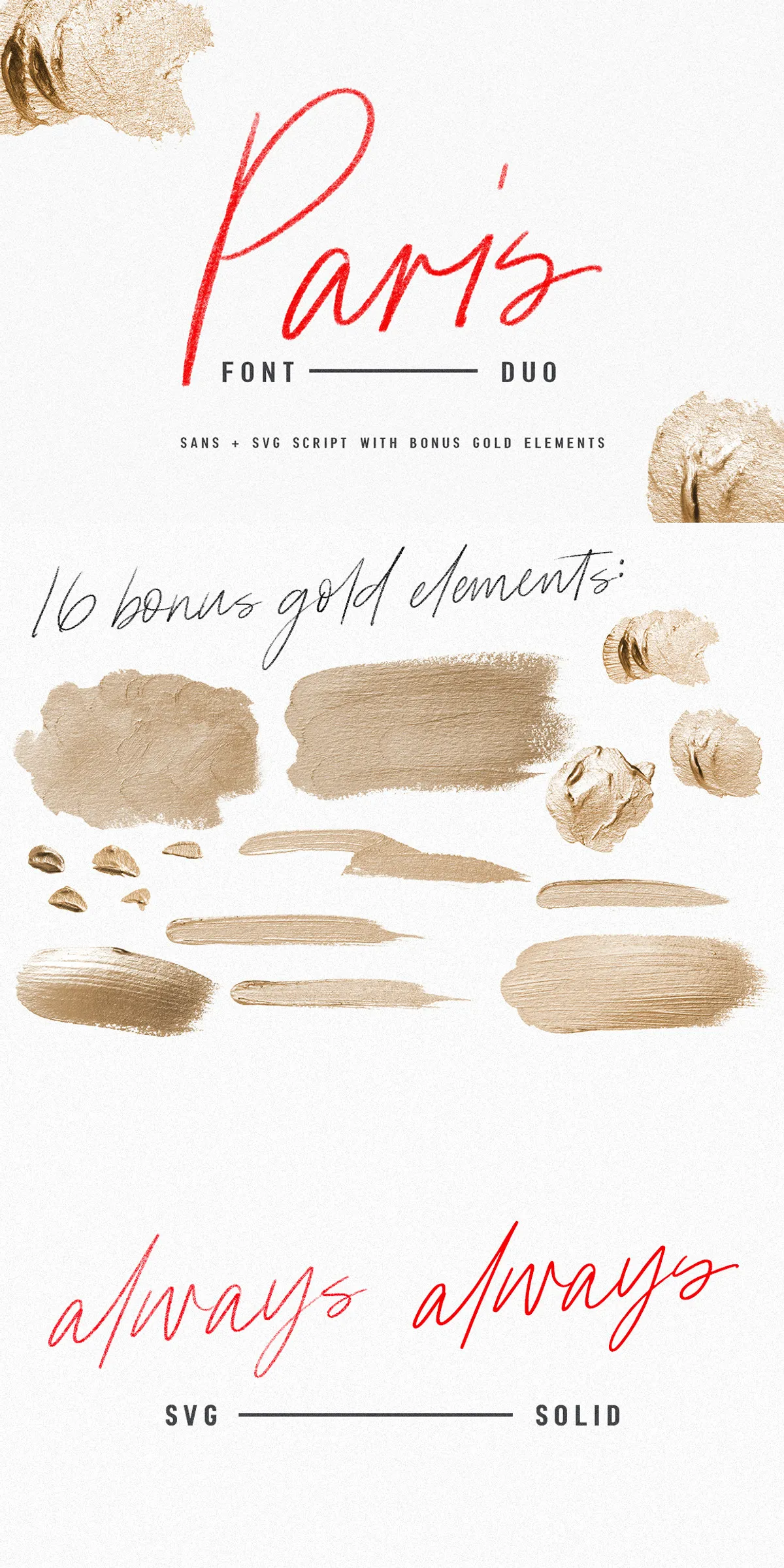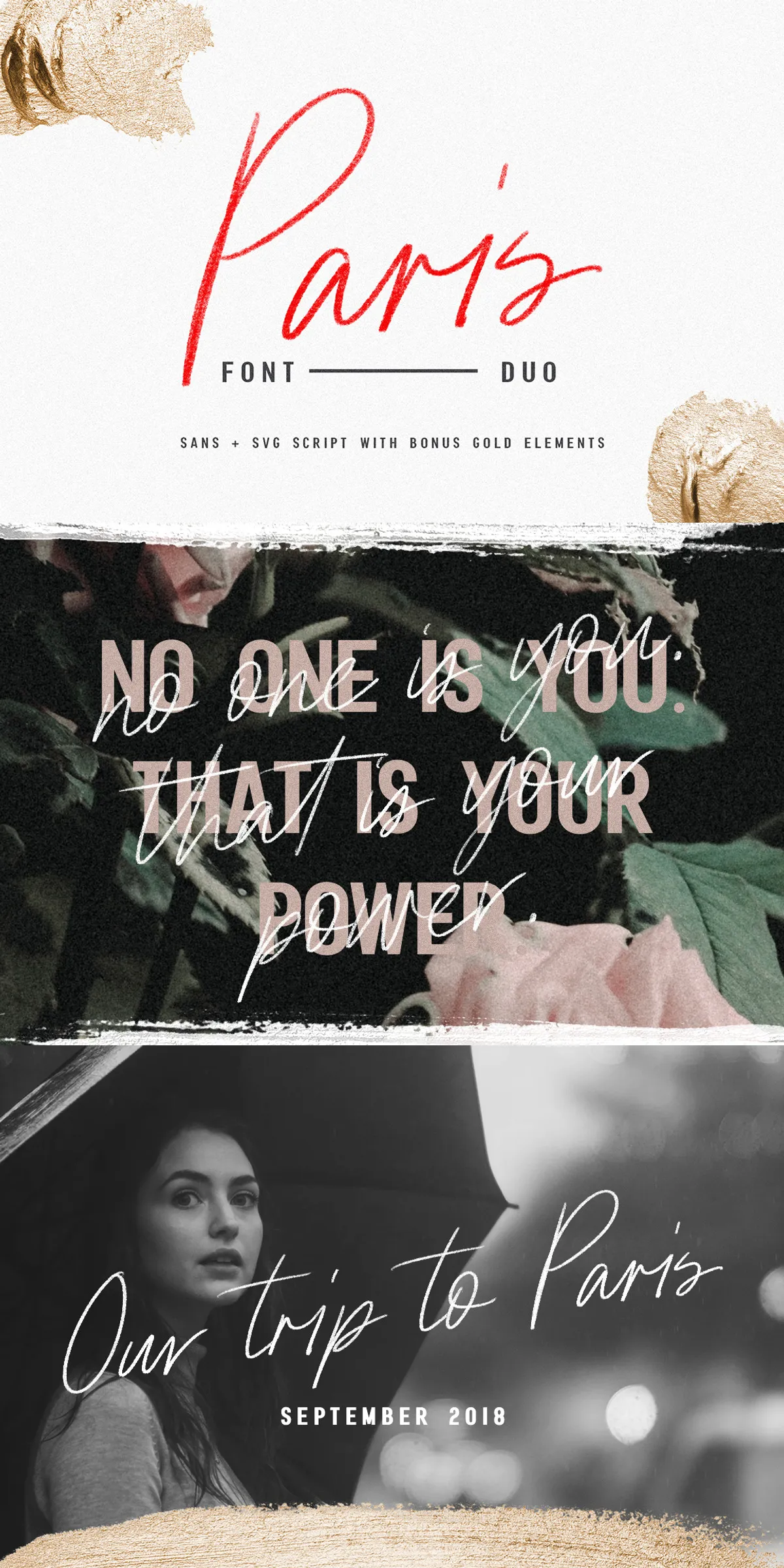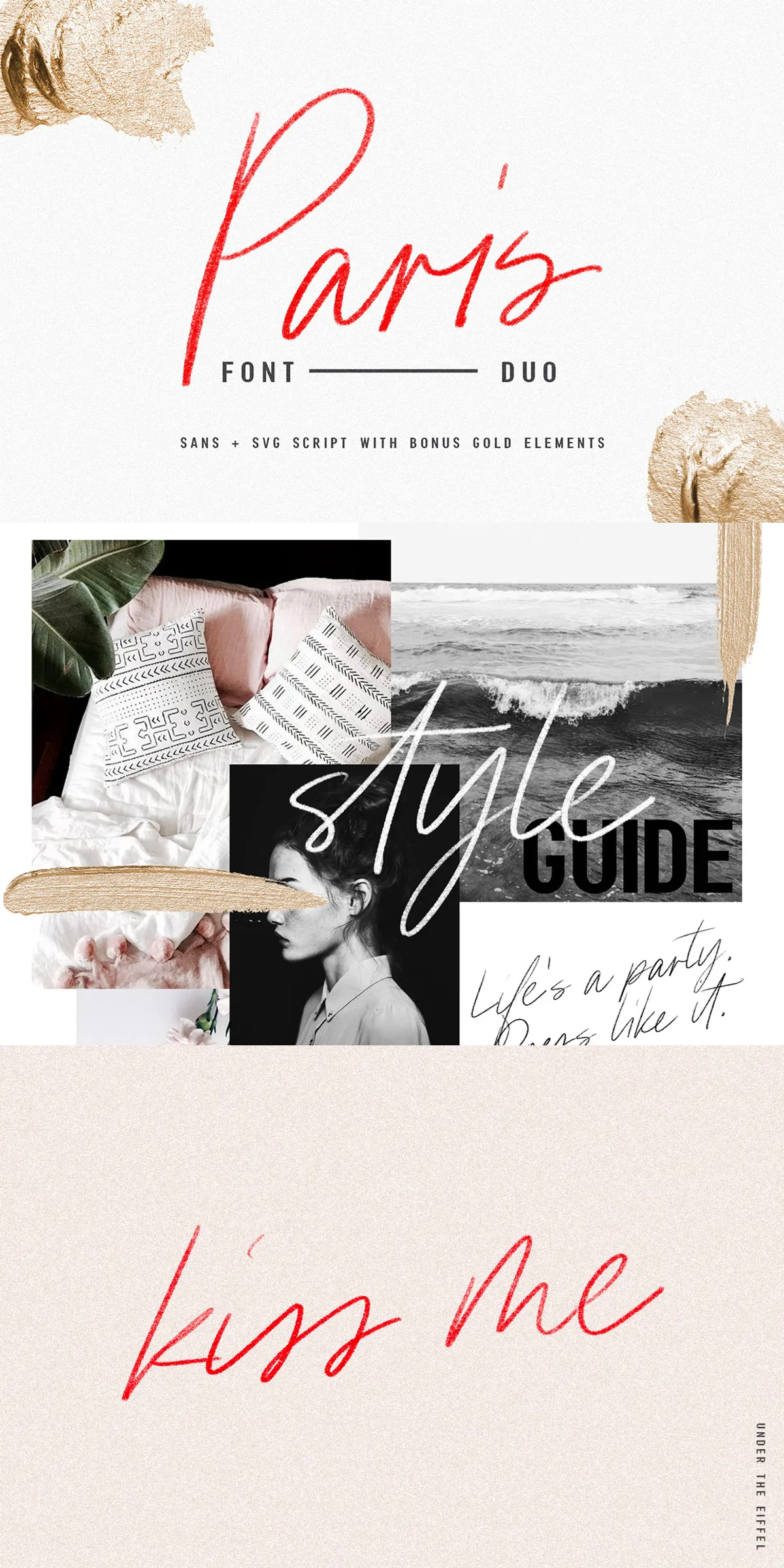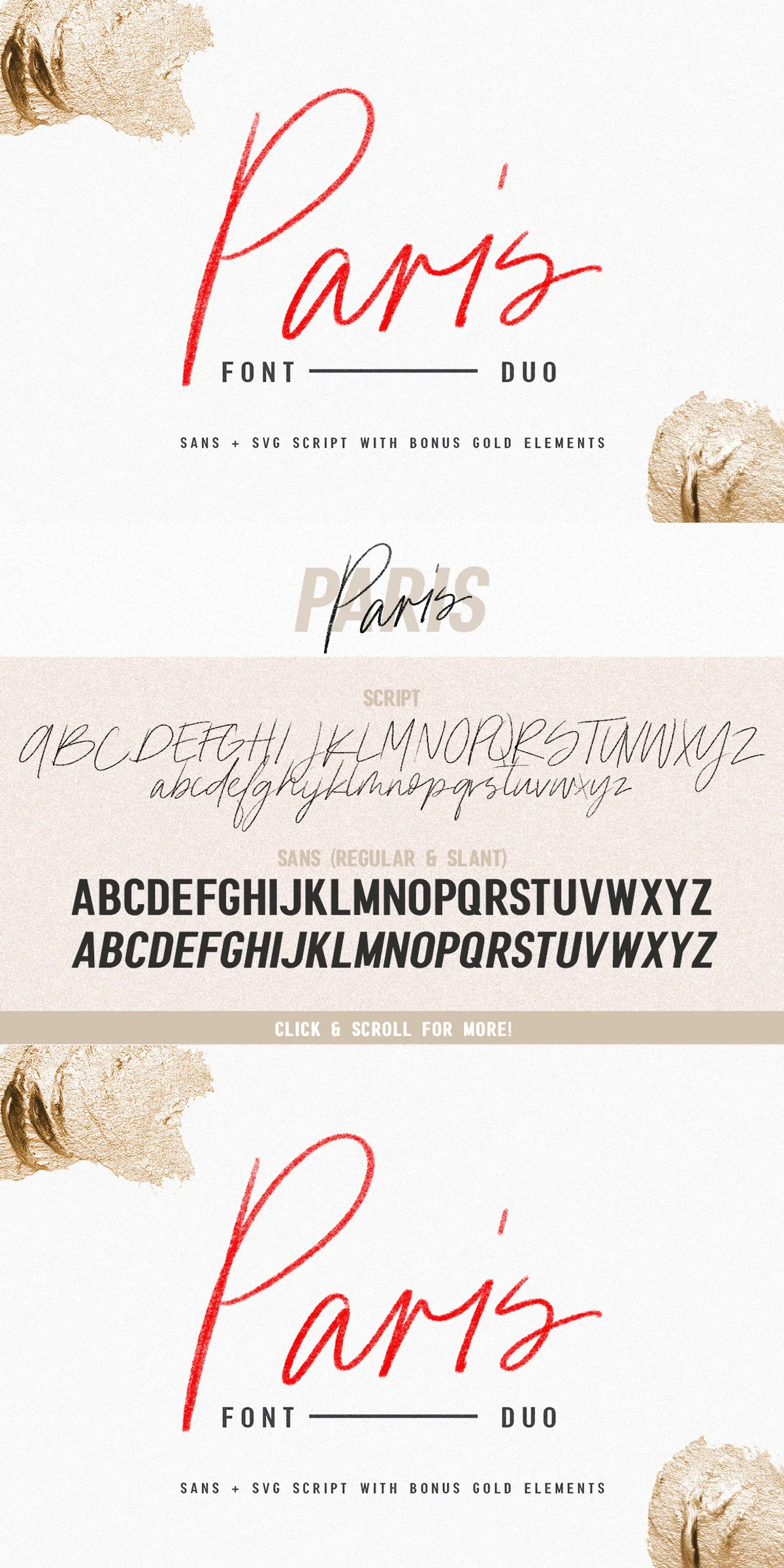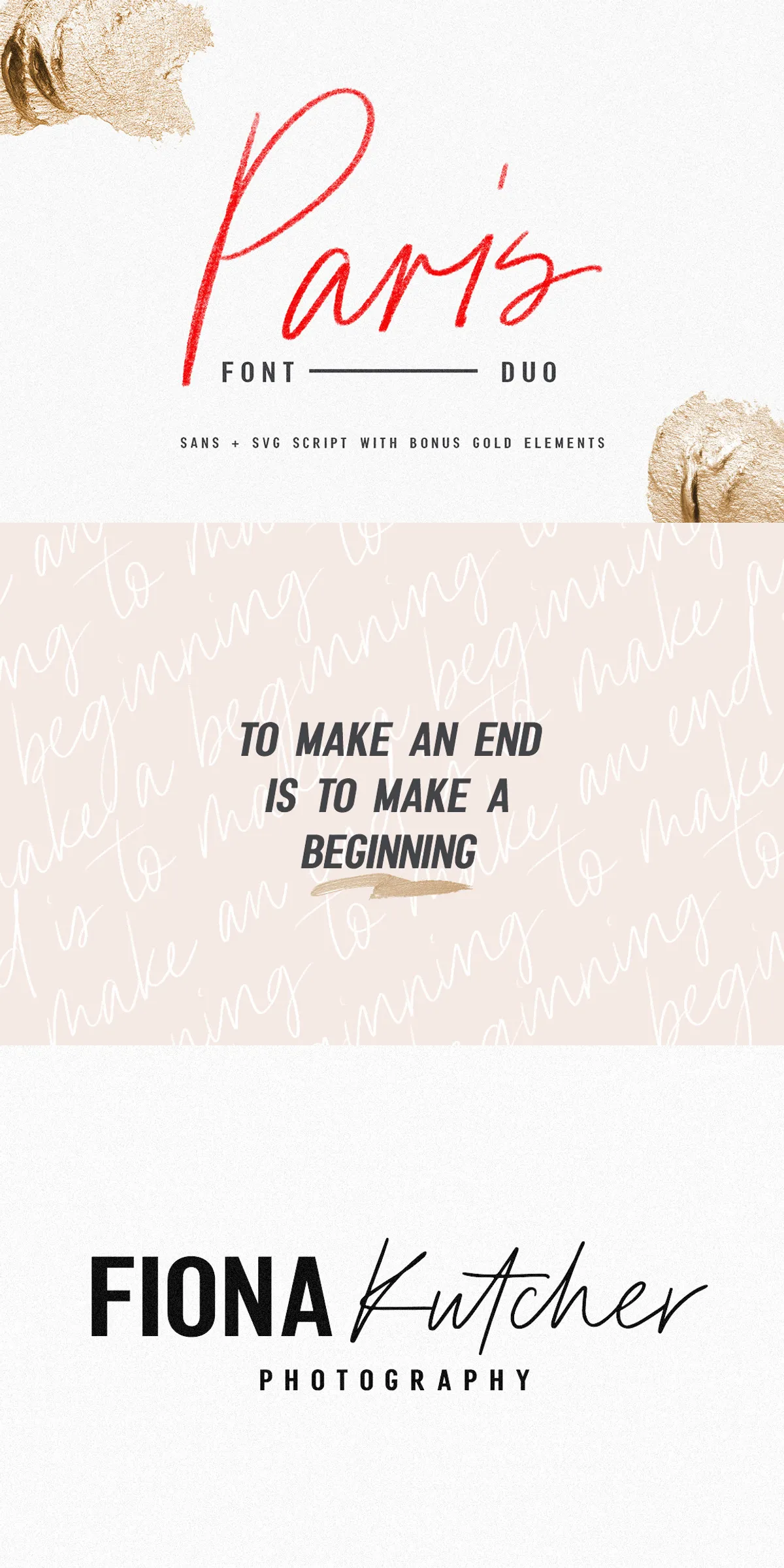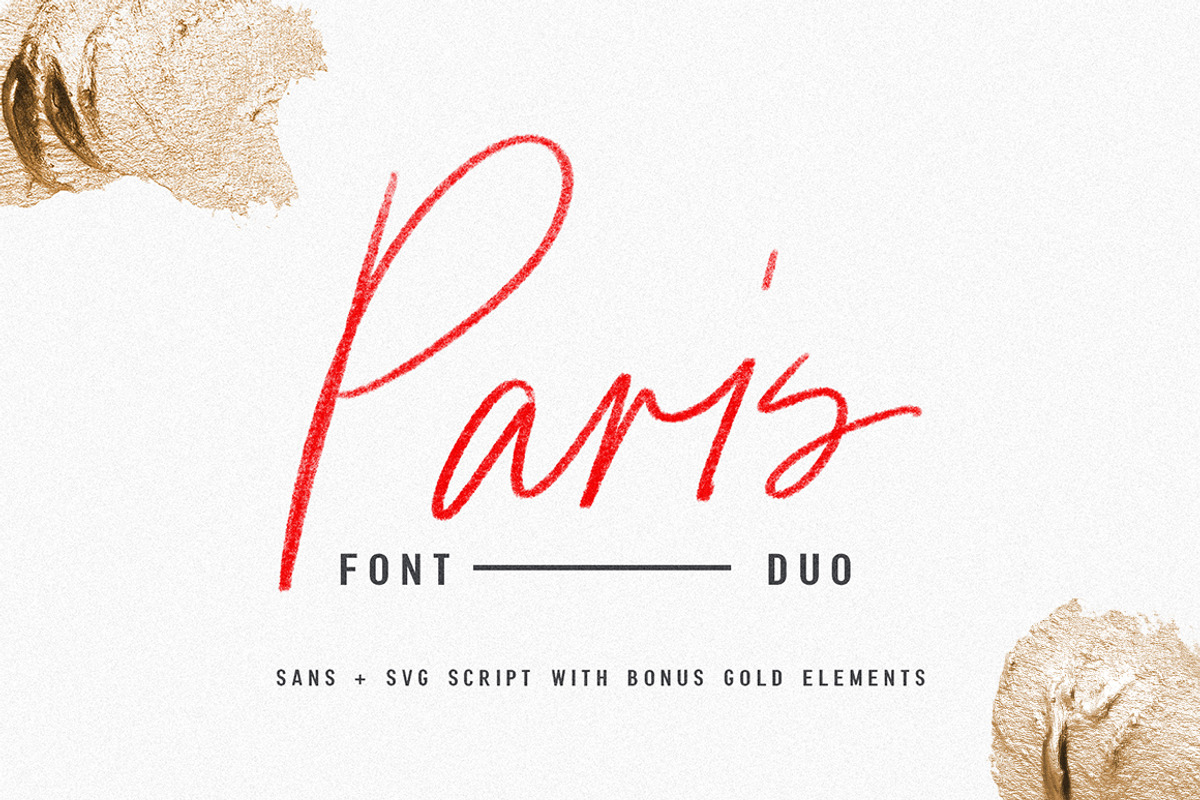
Introducing Paris Font Duo — a beautifully crafted, expressive typeface family that blends the delicate, handcrafted charm of a pencil-written script with the clean strength of a modern sans serif. Whether you’re designing elegant invitations, inspiring quotes, mood boards, branding collaterals, or social media graphics, Paris brings a refined yet playful touch that makes every word feel intentional, personal, and unforgettable.
What Makes Paris Stand Out? The Power of Texture and Precision
Unlike generic scripts, Paris Pencil SVG isn’t just a font — it’s a realistic representation of a real pencil stroke. With its authentic texture built directly into the font via SVG format, this script captures the subtle imperfections, pressure variations, and soft shading of hand-drawn lettering. It delivers a warm, organic feel that instantly elevates your design’s emotional appeal — perfect for projects that demand authenticity and soul.
Seamless Pairing and Maximum Flexibility
Paris isn’t just about one font — it’s a complete duo designed to work together, flawlessly. The bold, all-caps Paris Sans provides a minimalist, modern foundation that perfectly balances the fluidity of the script. Its clean lines and geometric clarity make it ideal for headlines, titles, and accent text.
For added dynamism, pair it with Paris Sans Slant — the slanted italic version that brings motion and rhythm to your typography. Whether you’re layering a script across a sans serif headline or building visual hierarchy with small caps and italic variations, Paris gives you endless ways to express your vision.
Rich Features for Designers Who Demand More
Paris isn’t just pretty — it’s powerful.
Your Complete Design Toolkit:
- 79 Handcrafted Ligatures — Automatically connect letters for natural, flowing strokes with minimal effort. No more manual alignment, just smooth, professional-grade typography.
- Full Multilingual Support — Includes comprehensive coverage for English, French, German, Spanish, Italian, Portuguese, Dutch, Swedish, Norwegian, Danish, Finnish, Polish, Hungarian, Turkish, Romanian, Czech, Latvian, Lithuanian, Slovak, Slovenian, and more.
- Bonus: 16 High-Resolution Gold Elements — Receive a full pack of premium gold textures made from real paint. Available as transparent PNGs, these elements can be layered on any background — light or dark, photo or solid — without any color clashes.
- Professional-Grade Vector Outlines — Crisp, scalable, and perfectly consistent at every size, from mobile screens to large-format prints.
Perfect for: Where Paris Shines
From intimate personal projects to high-end brand campaigns, Paris fits everywhere.
Top Use Cases for Paris Font Duo:
- Elegant Invitations & Save-the-Dates — Add a handmade, luxurious feel to wedding, baby shower, or event invitations.
- Graphic Quotes & Motivational Posters — Turn powerful messages into visual art with a tactile, emotional presence.
- Mood Boards & Design Inspiration — Use the gold elements and textured script to create rich, immersive visual stories.
- Social Media Content — Stand out on Instagram, Pinterest, and TikTok with posts that feel artistic, curated, and deeply engaging.
- Brand Identity & Packaging — Build a premium image with fonts that feel both modern and soulful.
- Blog Headers & Website Content — Use for headlines and CTAs to create emotional resonance and visual interest.
Create with Confidence — Built for Real Designers
Paris Font Duo was created by designers, for designers. Every detail — from the weight distribution to the ligature mapping — is fine-tuned for seamless integration into professional workflows. No glitches. No missing characters. Just smooth, powerful typography that works when you need it most.
Don’t settle for generic. Choose Paris — where the elegance of a pencil stroke meets the strength of modern design. Let your work speak not just with words, but with feeling, texture, and craftsmanship.